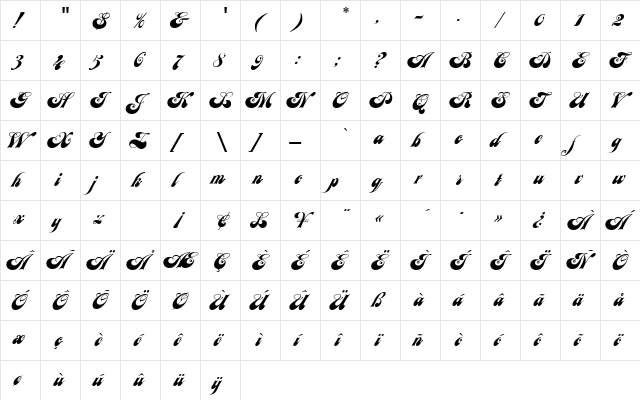
Julia Script EF Regular
Design Context for Julia Script EF Typeface
Julia Script EF flows with the natural rhythm of handwritten lettering, making it ideal for designs that call for warmth and personal expression.
Font Pairing: Combine Julia Script EF with a simple geometric sans for maximum contrast — the tension between flowing curves and clean structure is a classic typographic pairing.
Pro Tip: Use Julia Script EF for short runs of text — names, titles, or taglines. Extended body copy in script faces tires the eye quickly.